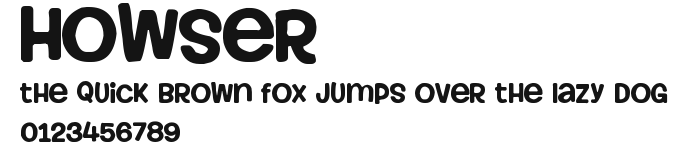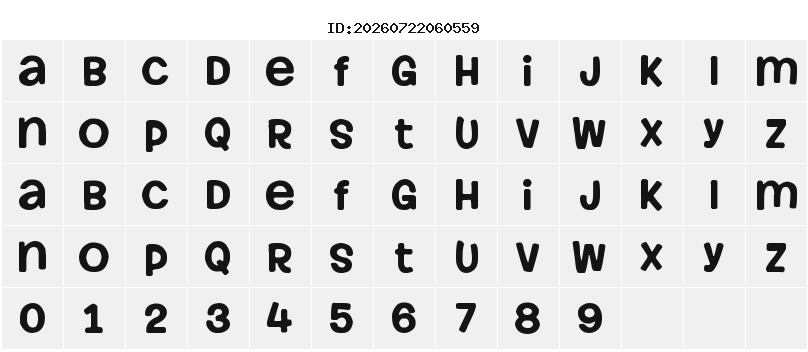
Howser Preview
• Font Name: Howser
• Full Font Name: Howser
• Designer: kevinandamanda.com
About Howser.ttf
Howser.ttf is a modern, elegant sans-serif font designed for ultimate readability and visual harmony. Perfect for branding, headlines, web design, and print materials.